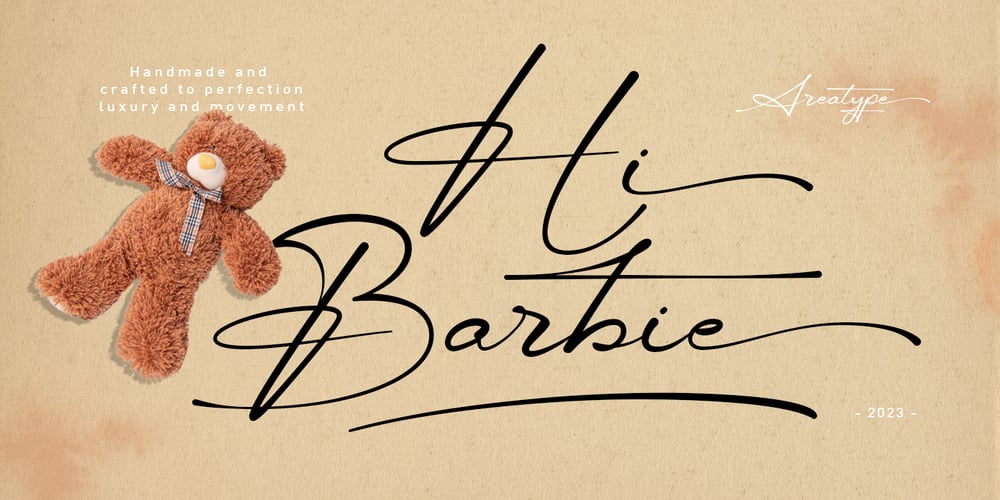
Hi Barbie Font Family was designed by Ambia and published by Areatype. Hi Barbie contains 1 styles and family package options. Hi Barbie, modern handmade script. It features dynamic and pretty swashes and can be used for many purpose, such as titles, signatures, logos, wedding invitations, letterhead, signage, labels, newsletters, posters, badges, and more.Files included: Hi Barbie Regular Numerals & Punctuation Stylistic Alternates & Ligatures PUA Encoded Characters Thanks so much for looking, I really hope you enjoy it and please don’t hesitate to drop me a message if you have any issues or queries ๐